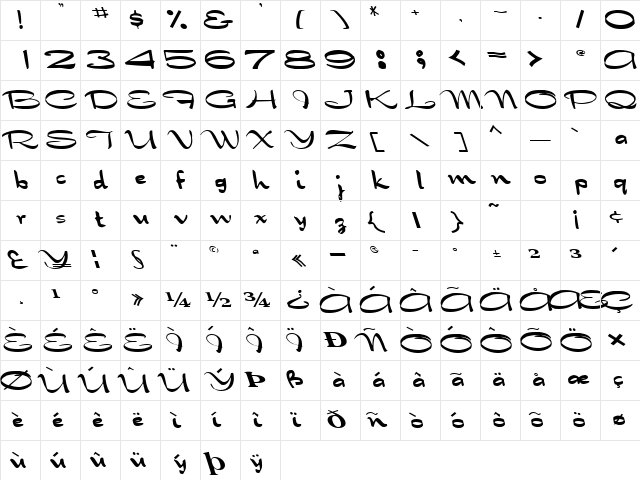
X Regular
X Family
Design Context for X
X is a composed and adaptable typeface that performs quietly and consistently across a wide range of design contexts.